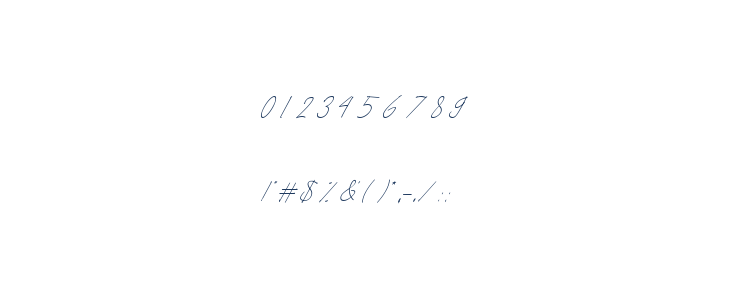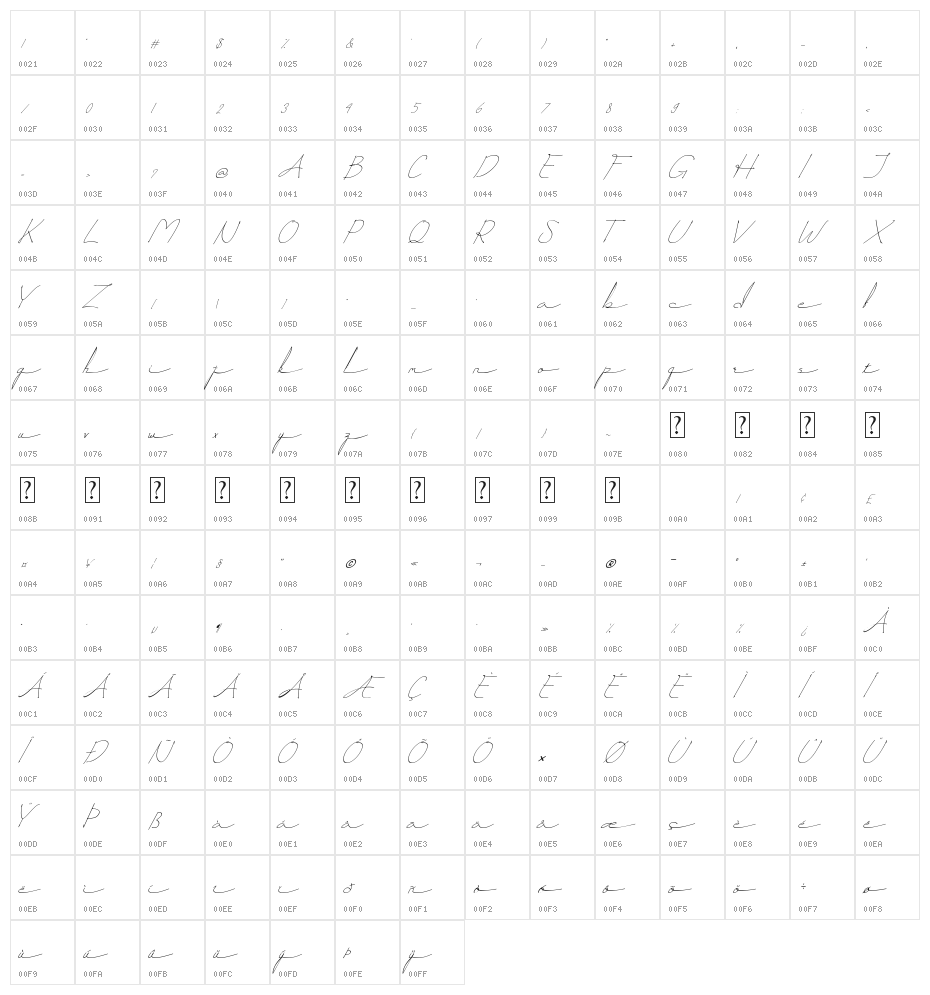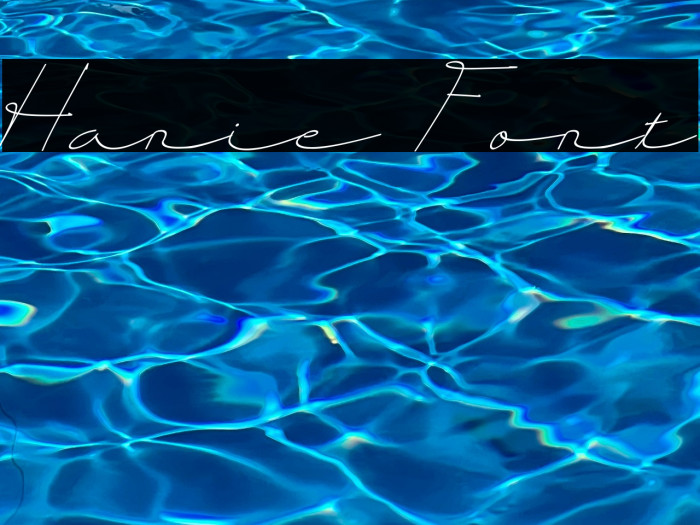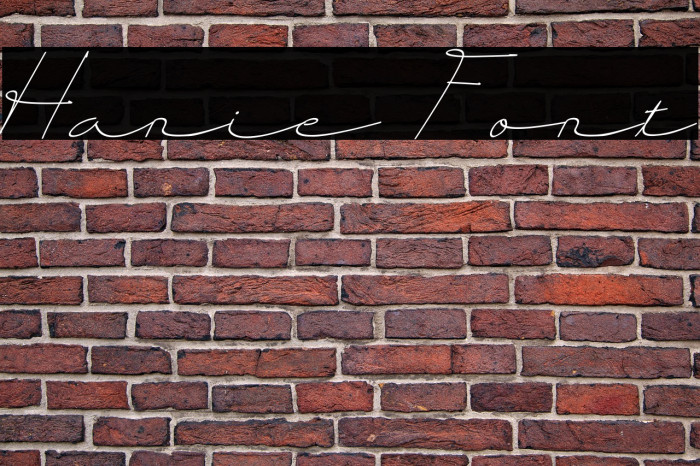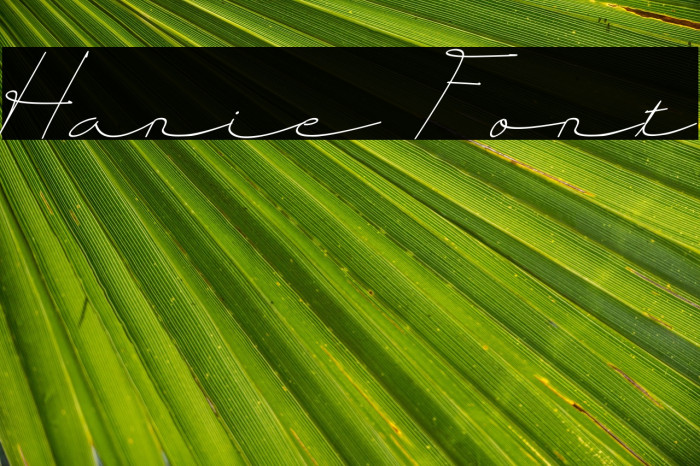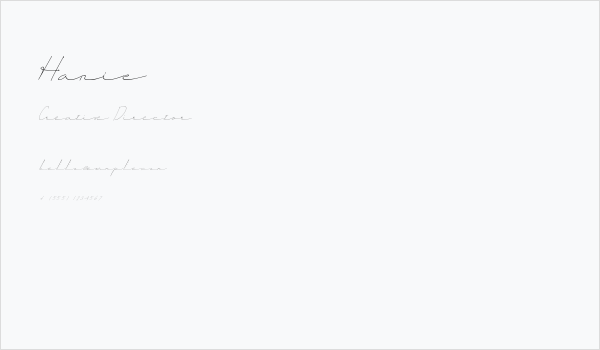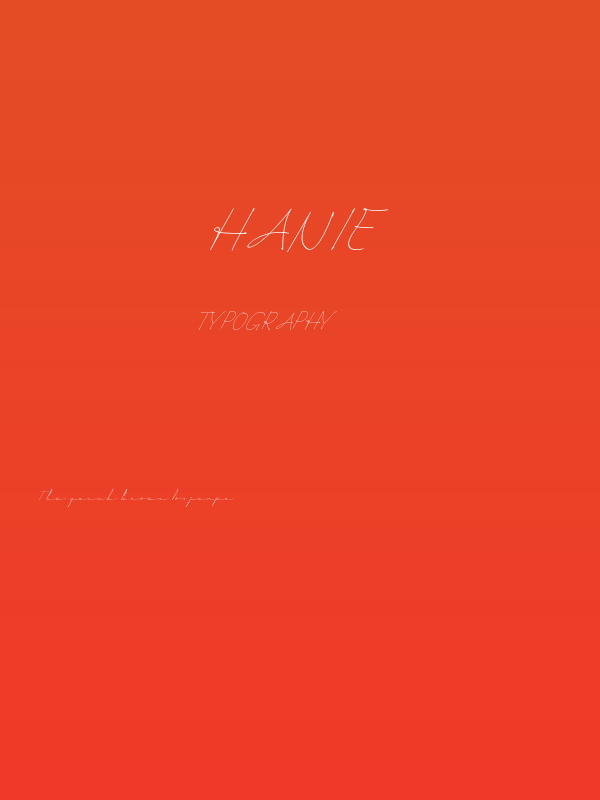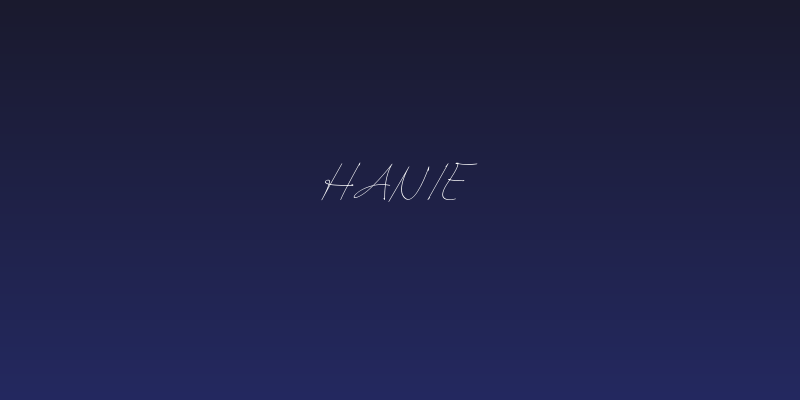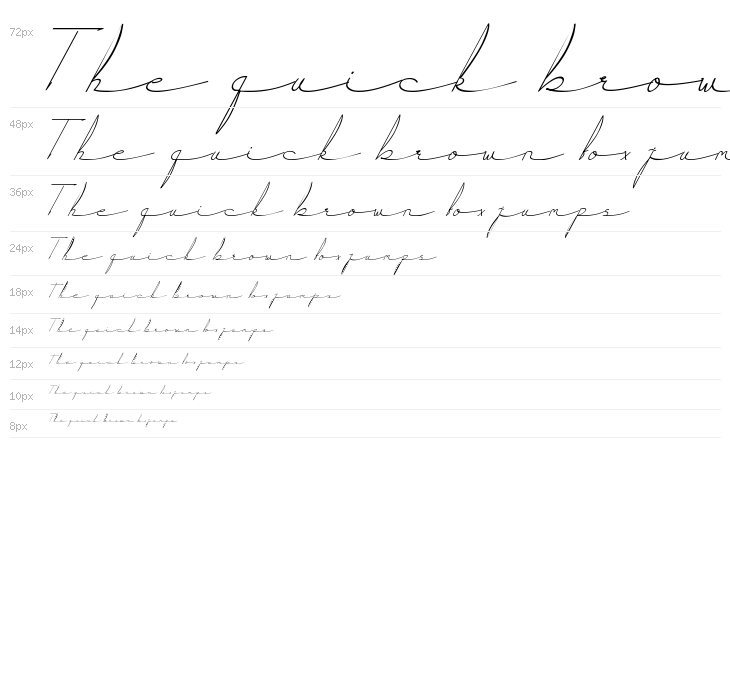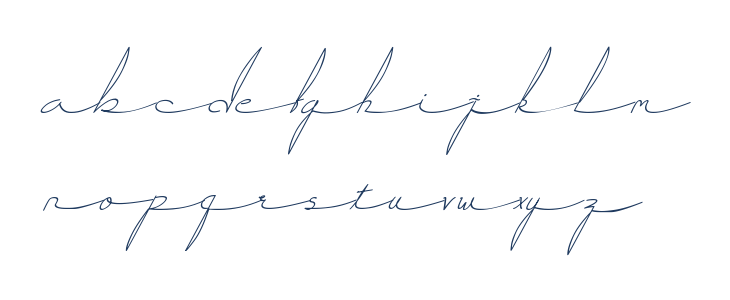
Hanie Font
Hanie Description
This font features an elegant, flowing script style that mimics the fluidity of natural handwriting. The characters are connected with smooth, sweeping lines, giving it a sophisticated and graceful appearance. The uppercase letters are slightly more structured, while the lowercase letters exhibit a more freeform, cursive style. The numerals and special characters maintain the same fluidity, ensuring a cohesive look across all text. The thin strokes and delicate curves make it ideal for projects that require a touch of elegance and personal flair.
| Overall Style | Elegant, Handwritten |
| Use Case | Logos, Invitations, Personal Branding |
| Proposed Projects | Ideal for wedding invitations, personal branding, elegant logos, and greeting cards. |